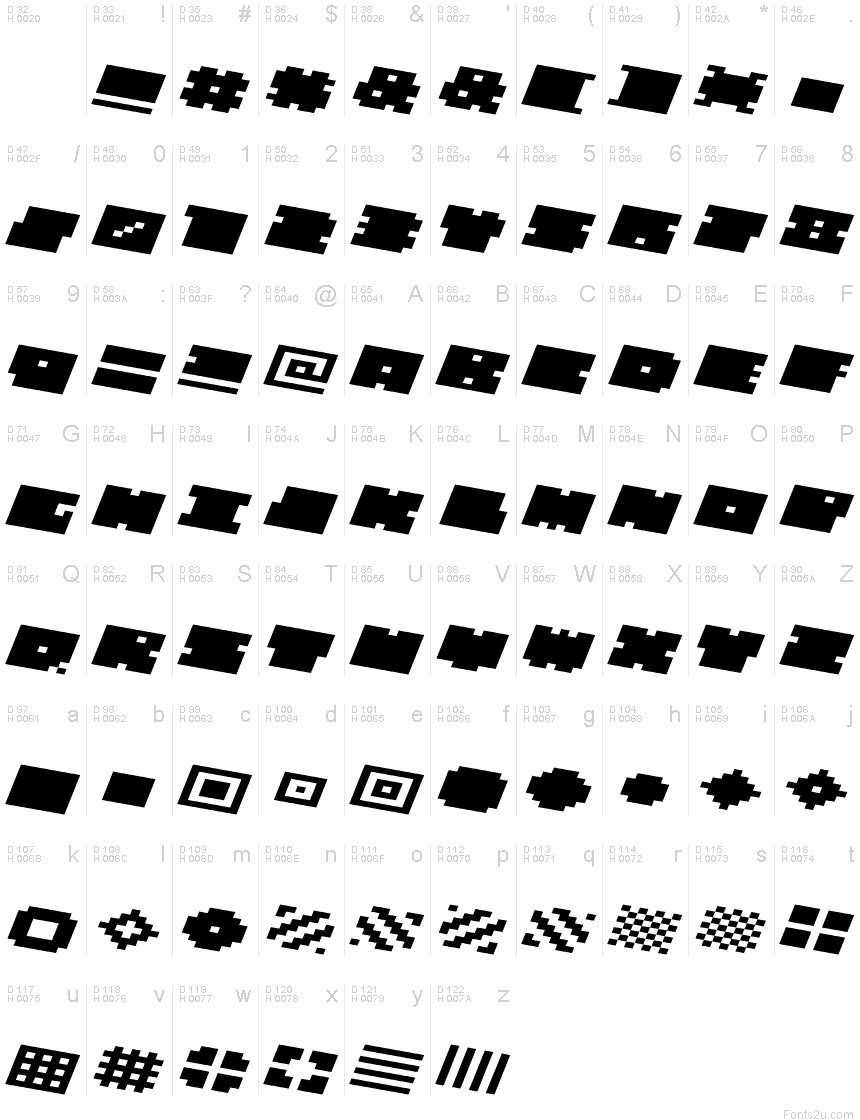
Qube Wide Italic, by Dan Redding of B/W Fontworks, is a free techno display font built from massive slanted blocks. Its letters resemble cut metal plates, with blunt edges, irregular notches, and tiny square openings repeated across the forms. The extreme width and uneven silhouettes make the lettering look mechanical and deliberately battered.
As an industrial badge or machine label, it can become part of the graphic rather than sit as ordinary text. That makes it useful for game interfaces, electronic music artwork, and science fiction merchandise. Posters are its clearest fit, because the broad tilted forms resemble oversized engineered symbols.